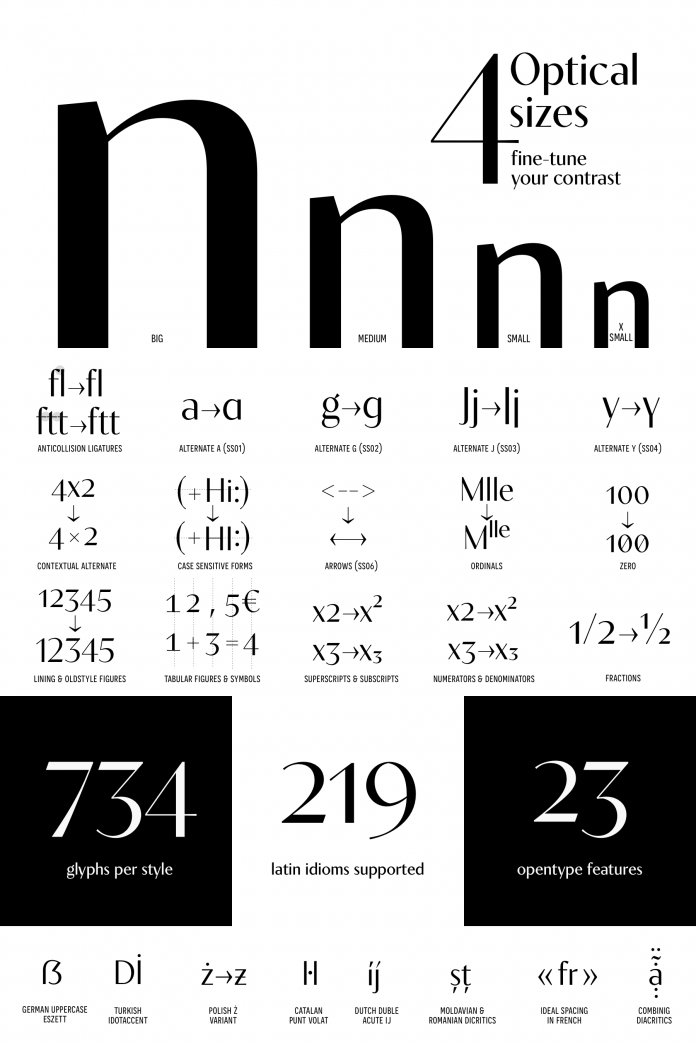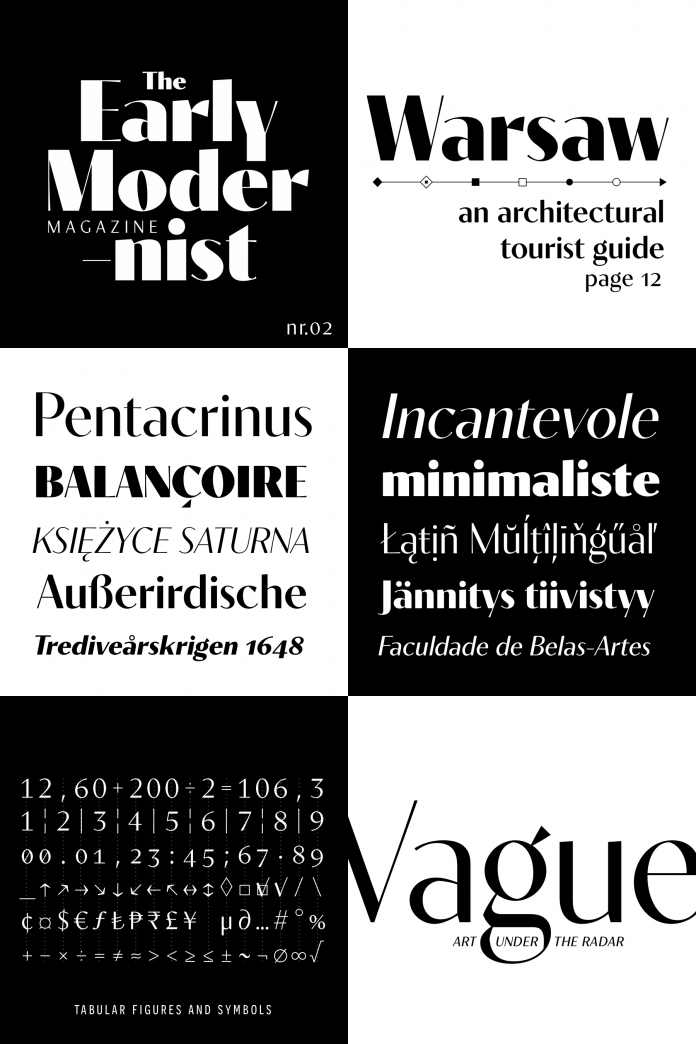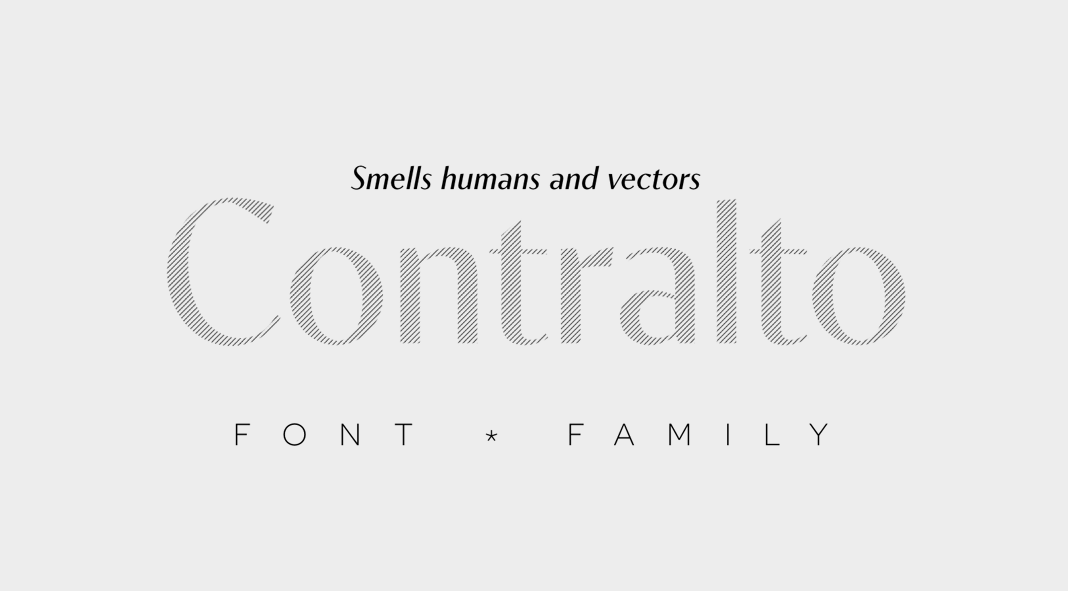
Published by Synthview Type Design, Contralto is a display sans font family that comes with forty styles.
Designed by Jan Tonellato of Synthview Type Design, Contralto is a characteristic display sans font family. Crafted to look elegant and contemporary at the same time, Contralto is based on sharp geometric details mixed with soft humanist shapes. The complete family consists of 40 styles including 5 weights plus matching italics and 4 optical sizes. Contralto also comes with plenty of OpenType features. For further information, just click on the following link.